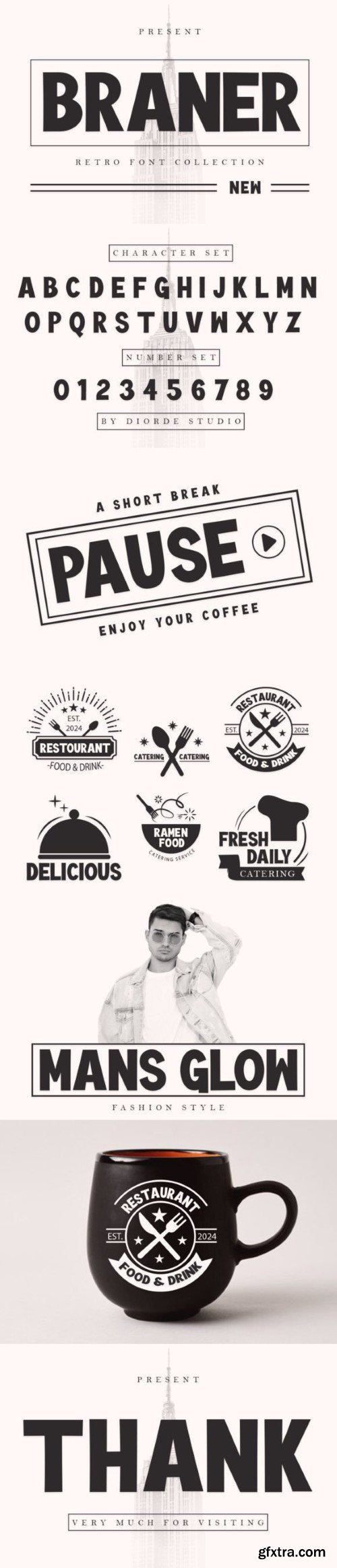
班纳字体
Braner is a vintage display font that will brighten up any of your designs. Add it with confidence to your projects, and you’ll love the results.